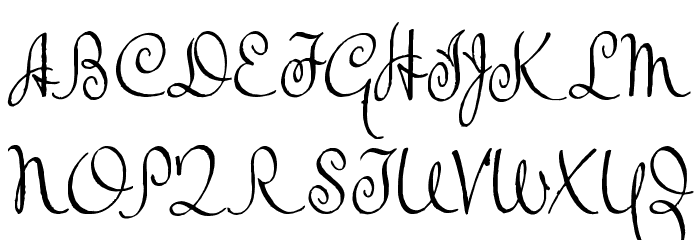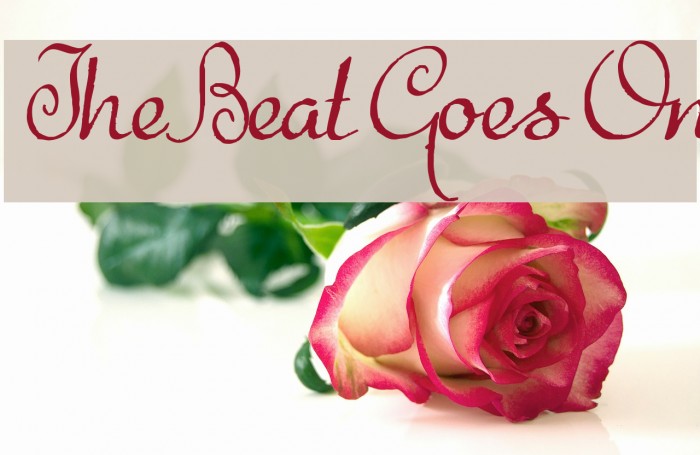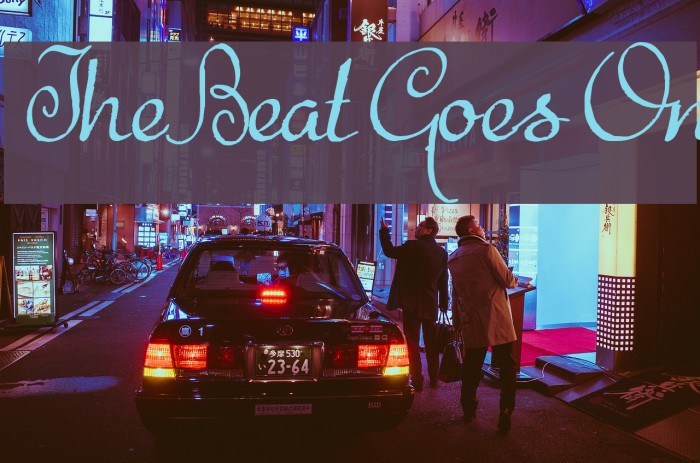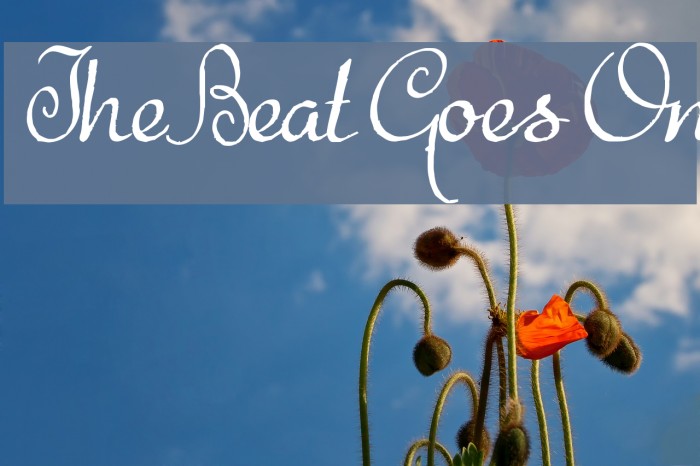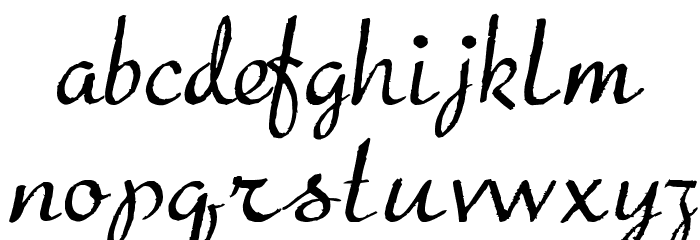
The Beat Goes On Font
This font features a unique and artistic script style with elegant, flowing lines and intricate loops. The uppercase letters are characterized by their ornate and decorative flourishes, giving them a sophisticated and stylish appearance. The lowercase letters maintain a consistent flow, with some characters featuring distinctive curls and swashes that add to the overall charm. The numbers and special characters are designed to complement the alphabet, maintaining the same artistic flair. This font is perfect for projects that require a touch of elegance and creativity, such as invitations, branding, and artistic designs.
An artistic script font with elegant, flowing lines and intricate loops.
• Proposed Projects: Ideal for invitations, branding, artistic designs, and any project requiring elegance.
• Category: Script
• Contrast: Medium
• Overall Style: Decorative
• Use Case: Headlines, Logos